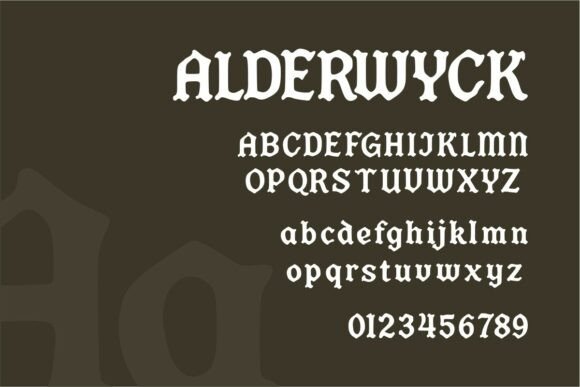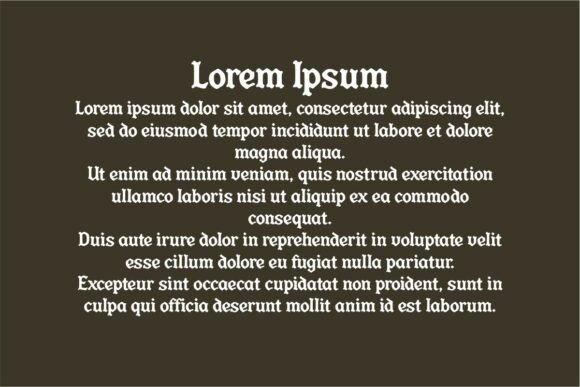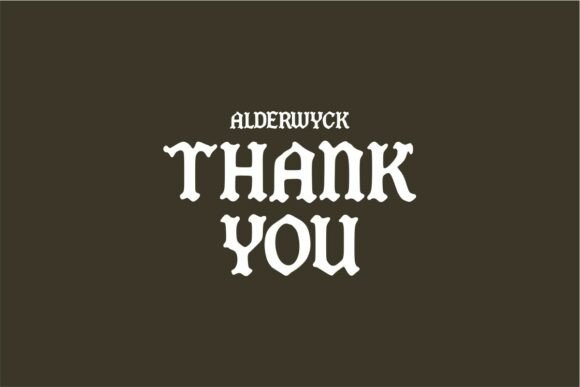
Discover the Timeless Elegance of Alderwyck Font
In the world of typography, few fonts evoke the sense of history, bravery, and refined elegance that Alderwyck Font embodies. Inspired by medieval European lettering, the age of exploration, and traditional print heritage, Alderwyck is a classic display typeface that exudes a strong, authoritative presence with a timeless character.
The Inspiration Behind Alderwyck
Alderwyck Font draws its inspiration from the rich typographic heritage of medieval Europe, a period marked by grandeur, exploration, and a flourishing of the arts. The font’s design is rooted in the traditional print heritage of the time, with bold contrasts, expressive serif details, and distinctive curves that evoke a sense of nostalgia and sophistication.
Alderwyck Font is characterized by its bold contrasts, which give it a sense of drama and elegance. The font’s serif details are expressive and ornate, adding a touch of refinement and luxury to any design. The distinctive curves of Alderwyck Font are also noteworthy, lending a sense of fluidity and movement to the text.
Use Cases for Alderwyck Font
Given its classic, masculine, and historic aesthetic, Alderwyck Font is ideal for a variety of design applications, including:
- Premium branding: Alderwyck Font is perfect for luxury brands looking to evoke a sense of history, sophistication, and elegance.
- Logos: The font’s bold, authoritative presence makes it an excellent choice for logos that require a strong, memorable presence.
- Poster headlines: Alderwyck Font is designed to stand out, making it an excellent choice for poster headlines that require a bold, attention-grabbing presence.
- Heritage packaging: The font’s historic aesthetic makes it an excellent choice for packaging design that seeks to evoke a sense of tradition and nostalgia.
- Beverage labels: Alderwyck Font’s classic, elegant design makes it an excellent choice for beverage labels that require a sophisticated, premium look.
- Editorial design: The font’s timeless character makes it an excellent choice for editorial design projects that seek to evoke a sense of history and sophistication.
- Visual projects: Alderwyck Font is ideal for visual projects that require a classic, masculine, and historic aesthetic, such as film titles, advertising campaigns, and more.
Why Choose Alderwyck Font?
Alderwyck Font offers a unique combination of classic elegance and bold authority, making it an excellent choice for designers and crafters looking to add a touch of sophistication and history to their designs. With its timeless character and versatile design, Alderwyck Font is sure to become a staple in any designer’s toolkit.
Tips for Using Alderwyck Font
To get the most out of Alderwyck Font, consider the following tips:
- Use it sparingly: Alderwyck Font is a bold, attention-grabbing font that is best used sparingly. Use it for headlines, titles, or key phrases to add emphasis and create visual interest.
- Pair it with contrasting fonts: Alderwyck Font pairs well with contrasting fonts that have a more modern, minimalist design. This creates a visually appealing contrast that adds depth and interest to your design.
- Experiment with colors: Alderwyck Font looks stunning in a variety of colors, from rich golds and blacks to deep blues and reds. Experiment with different colors to find the perfect combination for your design.
Alderwyck Font is a classic display typeface that embodies the perfect blend of history, bravery, and refined elegance. With its bold contrasts, expressive serif details, and distinctive curves, Alderwyck Font is designed to stand out with confidence and personality. Whether you’re a designer, crafter, or simply typography enthusiast, Alderwyck Font is sure to inspire and elevate your designs.